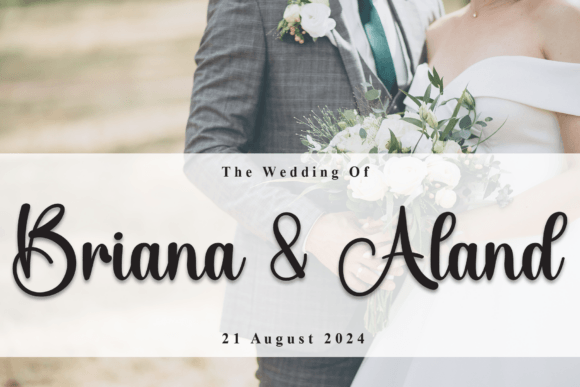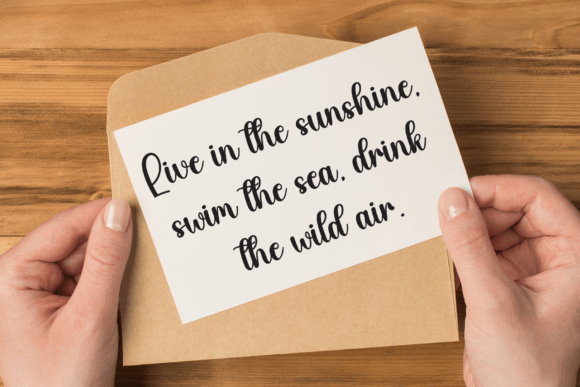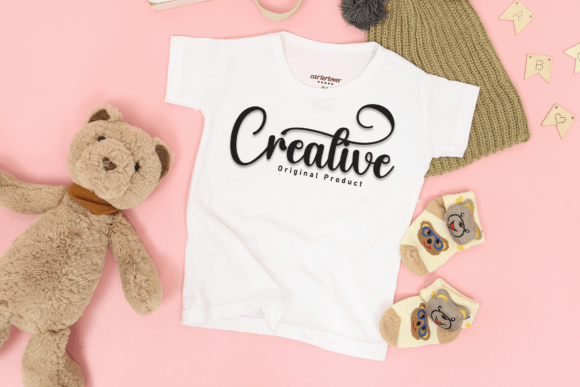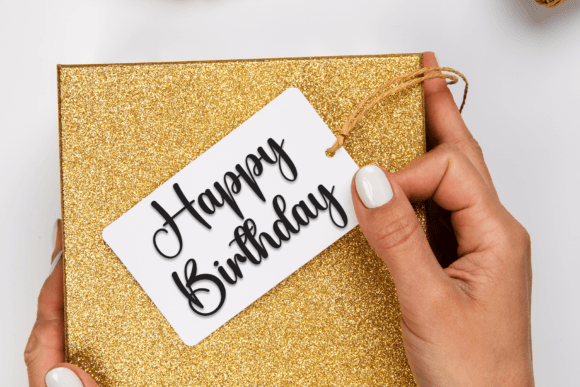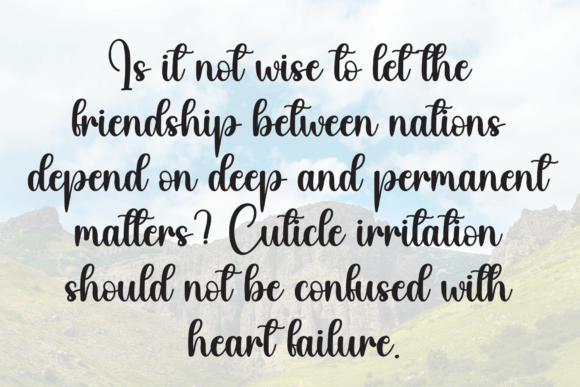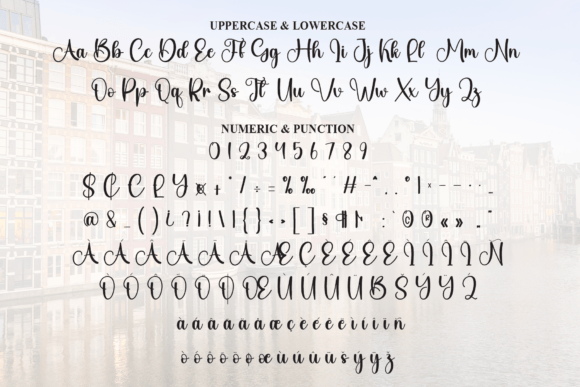
Discover the Charm of Amsterdam Font: Elevate Your Designs with a Personal Touch
Are you on the hunt for a font that adds a touch of personality to your designs? Look no further than the Amsterdam Font! This charming handwritten font is a perfect blend of thick and thin lines, giving your creative projects a unique and personal feel. In this article, we’ll dive into the world of Amsterdam Font, exploring its features, uses, and benefits for designers and crafters alike.
The Unique Style of Amsterdam Font
Amsterdam Font boasts a distinctive handwritten style that sets it apart from other fonts. Its thick and thin lines create a beautiful contrast, adding a touch of elegance and sophistication to any design. The font’s unique style makes it perfect for a variety of projects, from invitations and quotes to blog posts and social media graphics.
Amsterdam Font is a versatile font that can be used in a wide range of creative projects. Whether you’re a designer, crafter, or DIY enthusiast, this font is sure to become a favorite. Here are just a few ideas for using Amsterdam Font:
- Invitations: Add a personal touch to your invitations with Amsterdam Font. Whether you’re planning a wedding, birthday party, or baby shower, this font is sure to make your invitations stand out.
- Quotes: Use Amsterdam Font to add a touch of elegance to your quotes. Whether you’re creating a motivational poster or a social media graphic, this font is sure to make your message shine.
- Blog Posts: Add a personal touch to your blog posts with Amsterdam Font. Whether you’re writing a fashion blog or a food blog, this font is sure to make your content more engaging.
- Social Media Graphics: Use Amsterdam Font to create eye-catching social media graphics. Whether you’re promoting a product or service or simply sharing a quote, this font is sure to grab attention.
Amsterdam Font offers a range of benefits for designers and crafters. Here are just a few reasons why you should consider adding this font to your collection:
- Unique Style: Amsterdam Font offers a unique style that’s sure to set your designs apart. Whether you’re creating a logo, brochure, or website, this font is sure to make your design more memorable.
- Easy to Read: Despite its unique style, Amsterdam Font is easy to read. This makes it perfect for body text, headings, and titles.
- Versatile: Amsterdam Font can be used in a wide range of projects, from digital designs to print materials.
- Personal Touch: Amsterdam Font adds a personal touch to your designs, making them feel more approachable and engaging.
Tips for Using Amsterdam Font
Here are a few tips for getting the most out of Amsterdam Font:
- Pair with Other Fonts: Amsterdam Font pairs well with other fonts, such as sans-serif fonts and script fonts. Experiment with different pairings to find the perfect combination for your design.
- Use for Headings: Amsterdam Font is perfect for headings and titles. Use it to add a touch of elegance to your designs.
- Experiment with Colors: Amsterdam Font looks great in a range of colors. Experiment with different colors to find the perfect shade for your design.